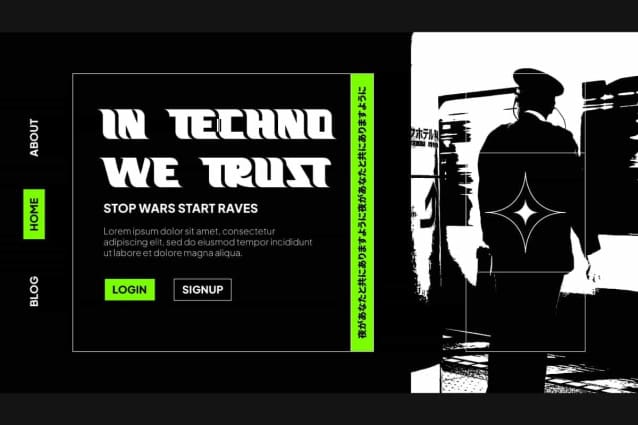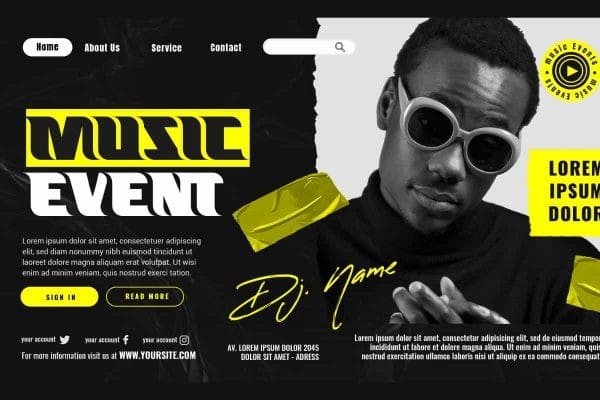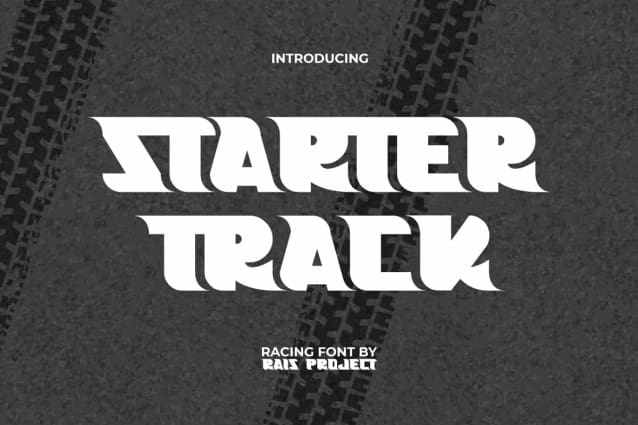
Starter Track Font
Starter Track Font is a modern decorative font with racing theme, by RaisProject Studio. This font has thick letter characters with sharp angles that giving a stunning impression. It will be good for any designs, such as advertisement, brand image, cover, custom design, invitation, label, marketing material, poster, product packaging, quotes, signage, stationery, website page, and more!
Starter Track Font includes a full set of ALL CAPS for Uppercase and Lowercase Letters, Numerals, and large range of Punctuation. This modern font with a racing vibe will be suitable for various industries, such as automotive, cafeteria, event or festival, fashion, game, printing, publishing, sports, etc.